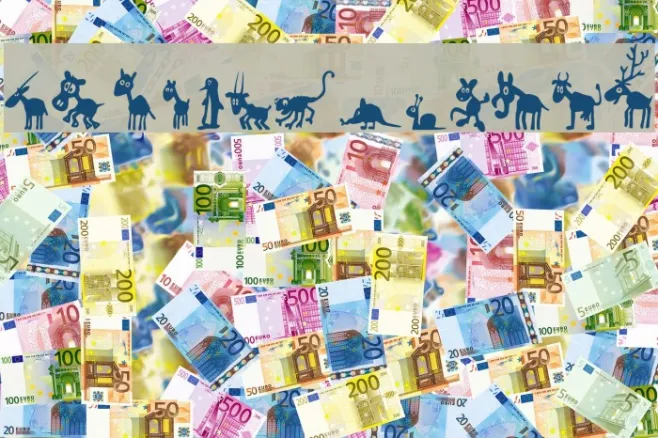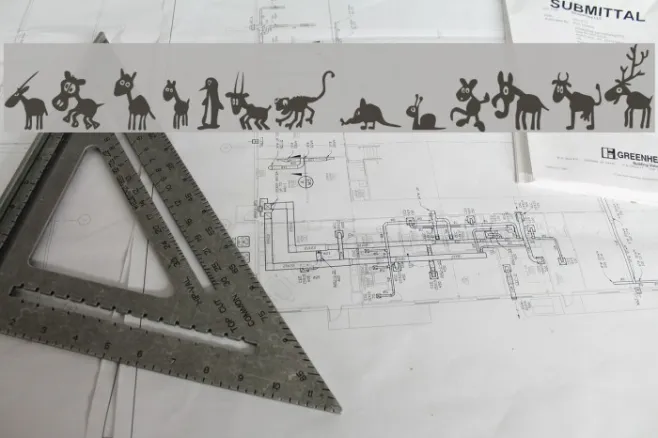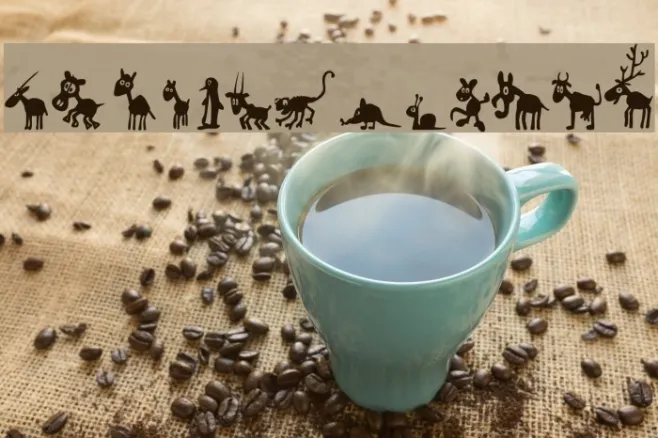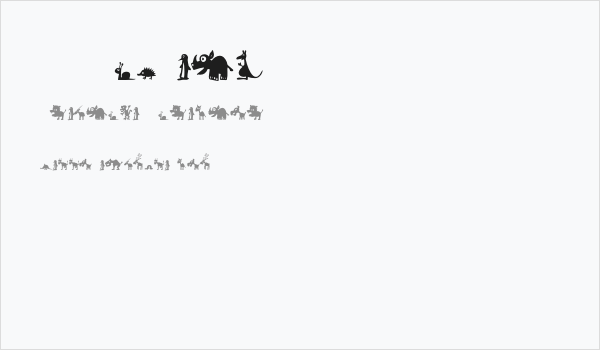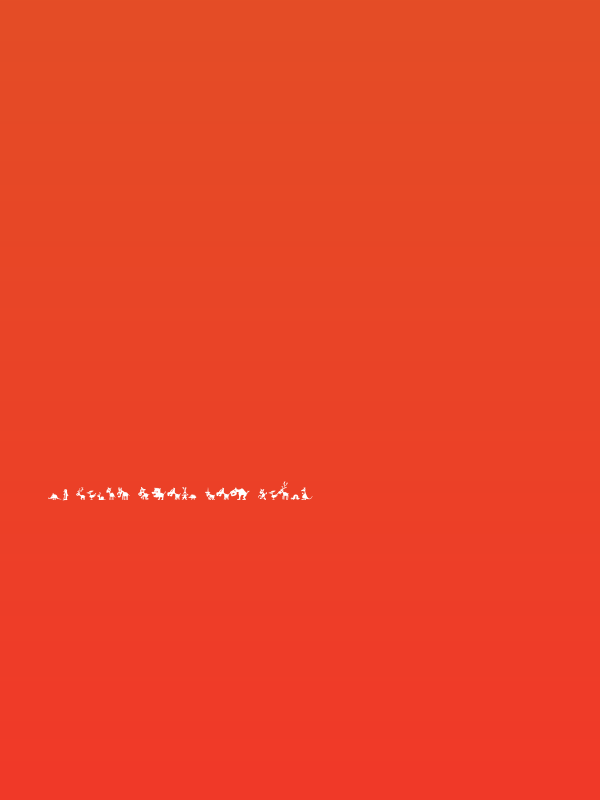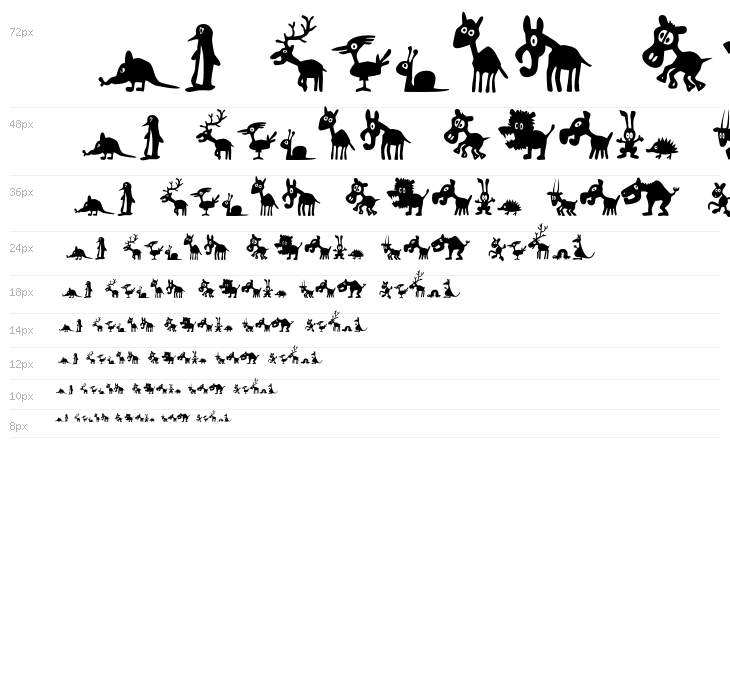
FE-WinPets1 Font
FE-WinPets1 Description
A playful, decorative dingbat font featuring whimsical, cartoon-like animal silhouettes with exaggerated features and humorous expressions. Each character represents a different imaginative creature, rendered in bold, solid black shapes.
| Overall Style | Playful, Decorative, Cartoonish |
| Use Case | Illustrations, Decorative elements, Themed graphics |
| Proposed Projects | ChildrenΓ’β¬β’s books, educational materials, party invitations, playful branding, stickers, and creative posters. |